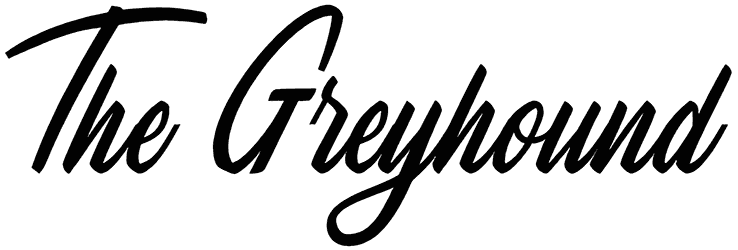
The Greyhound Font
You’ll never run out of options for designing cool hoodies, coffee shop signs, branding different feminine hygiene products, or anything else that can use such a dashing style promised by The Greyhound. This slick calligraphy font is made for calligraphy to get you covered whenever you want to keep things stylish but also cozy. That has led to a super practical cursive italic font that you’ll always be in need of. It’s like it just knows how to turn heads.